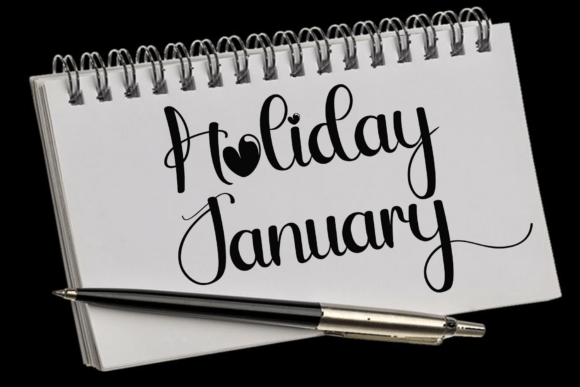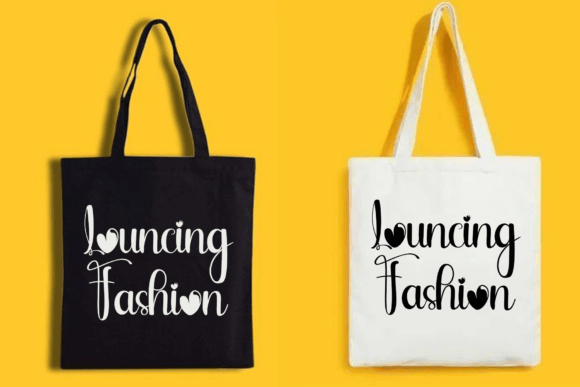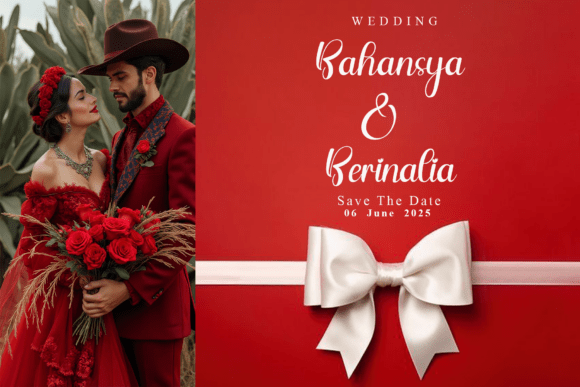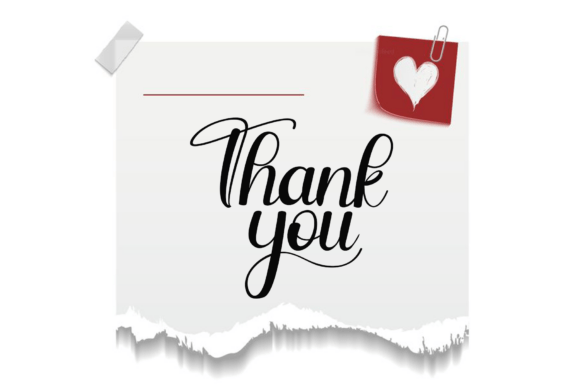
The Charm of Farmhouse Font: A Designer’s Delight
I’ll never forget the time I was working on a rustic-chic wedding invitation project, and my client specifically asked for a font that exuded warmth, elegance, and a touch of whimsy. I scoured the internet, tried out countless fonts, but nothing seemed to fit the bill. That was until I stumbled upon Farmhouse Font. ✨ It was love at first sight! The perfect blend of classic calligraphy and modern flair, Farmhouse Font has since become a staple in my design toolkit.
- ✅ Balanced and varied: Farmhouse Font has a beautiful range of letterforms, making it perfect for body text, headings, and even decorative elements.
- ✅ Contemporary atmosphere: This font effortlessly blends traditional calligraphy with modern sensibilities, giving your designs a fresh, stylish feel.
- ✅ Impeccable form: The attention to detail in Farmhouse Font is impressive, with beautifully crafted letterforms that exude elegance.
- ✨ OpenType features: This font comes with a range of OpenType features, including stylistic alternates, ligatures, and glyphs, giving you plenty of creative options.
A Few Quirks
- ⚠️ Limited multilingual support: While Farmhouse Font covers the basics, it’s not designed for extensive multilingual use, so keep that in mind if you’re working on a project that requires a wide range of languages.
- 🤔 Some glyphs can be finicky: A few users have reported issues with certain glyphs not displaying correctly in certain software or platforms. However, these issues are relatively rare and usually easily fixable.
The Story Behind Farmhouse Font
Farmhouse Font was inspired by the timeless beauty of classic calligraphy. Its designer, a typography enthusiast, sought to create a font that would blend traditional elegance with modern flair. The result is a stylish, handwritten font that’s perfect for a wide range of design projects, from rustic-chic wedding invitations to modern branding and packaging.
| Font Name | Farmhouse Font |
| Author | Preketek texs |
Q: Is Farmhouse Font suitable for body text?
While Farmhouse Font is primarily designed for display use, its balanced and varied letterforms make it suitable for body text in certain contexts, such as invitations, menus, or other design projects where readability is key.